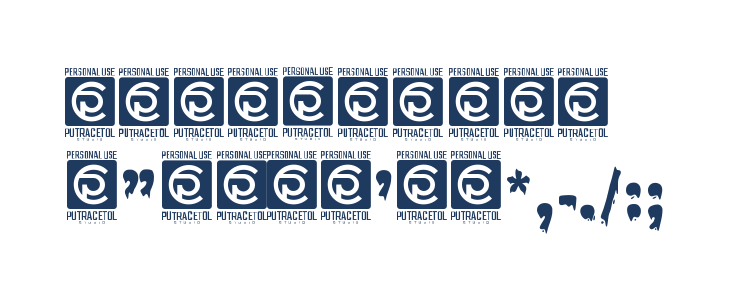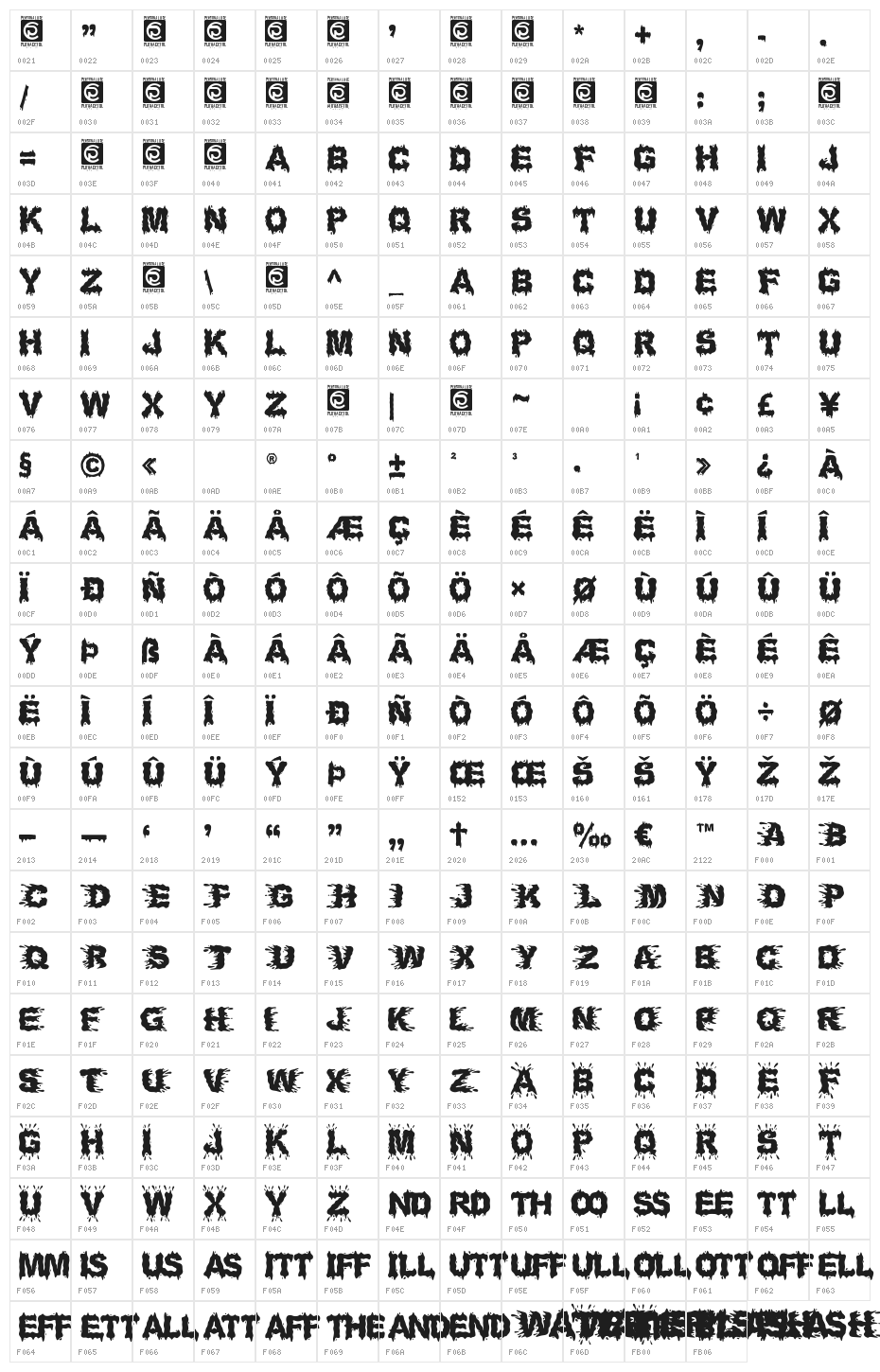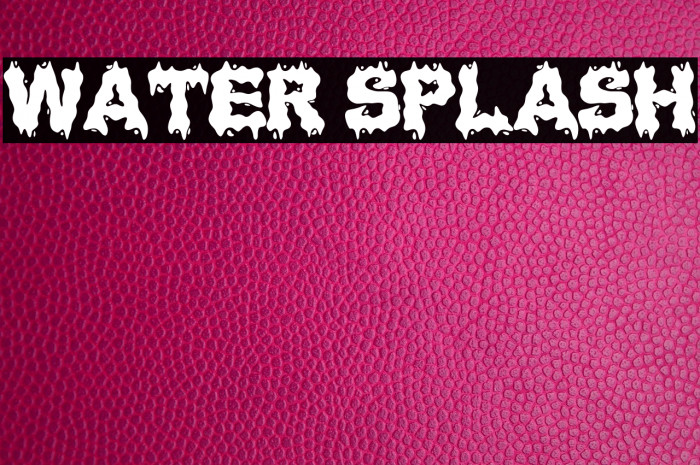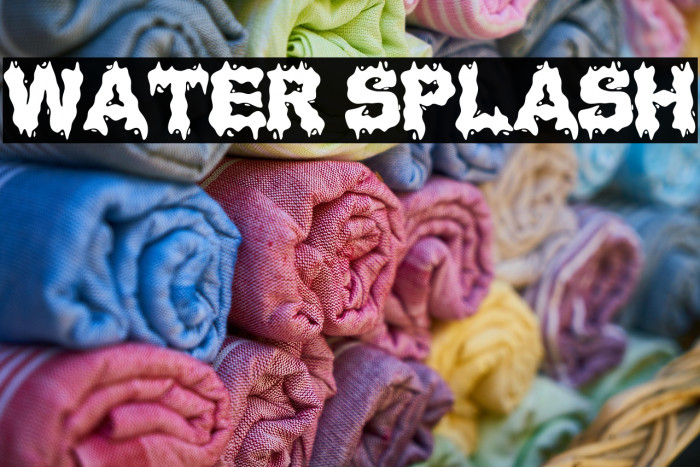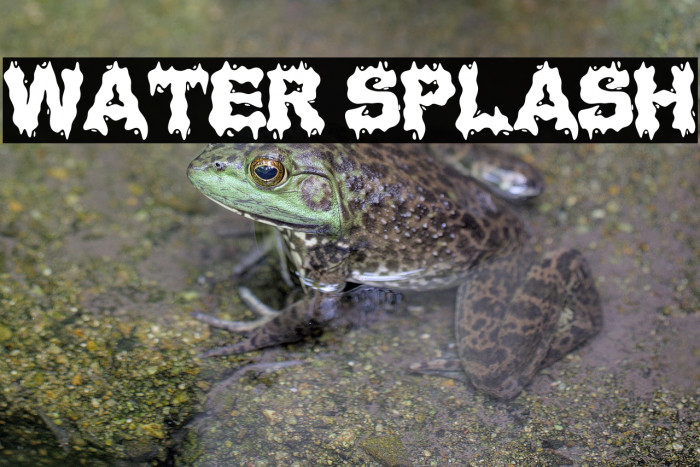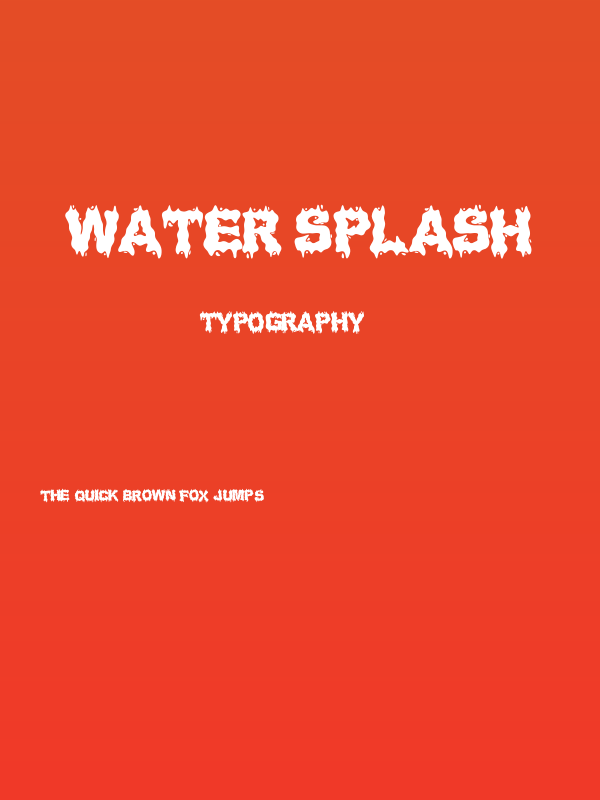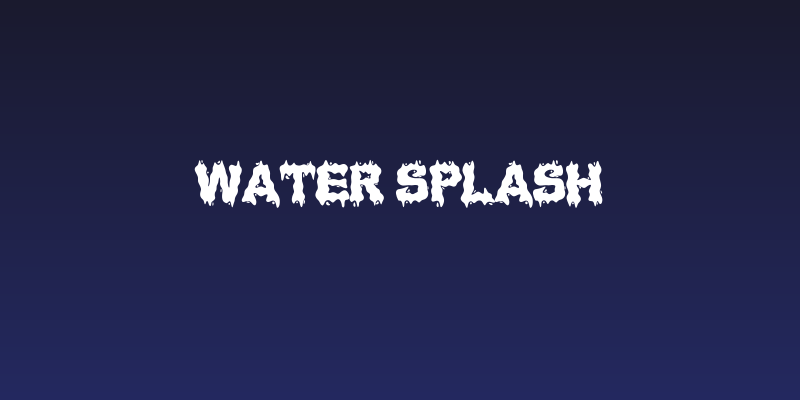
Water Splash Font
Water Splash Description
This font features a dynamic and fluid design, reminiscent of splashing water or dripping paint. Each character is crafted with irregular edges and flowing forms, creating a sense of movement and energy. The bold and thick strokes enhance its dramatic appearance, making it stand out in any design. The uppercase and lowercase letters maintain a consistent style, while the numbers and special characters complement the overall aesthetic. This font is ideal for projects that require a bold and eye-catching display, such as posters, album covers, or themed events.